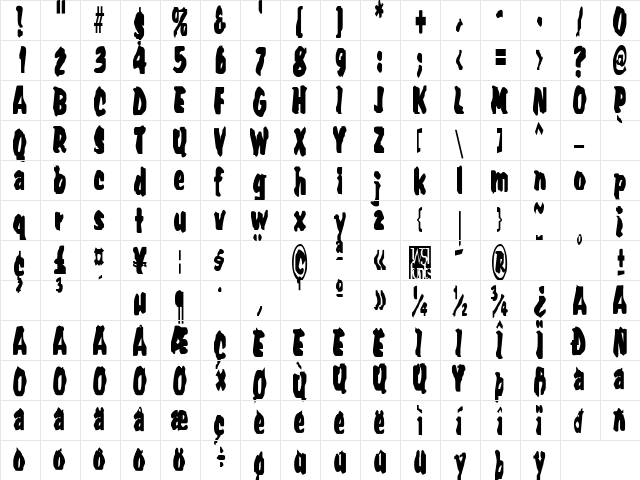
Umpyre Regular
Design Context for Umpyre Typeface
Umpyre is a composed and adaptable typeface that performs quietly and consistently across a wide range of design contexts.